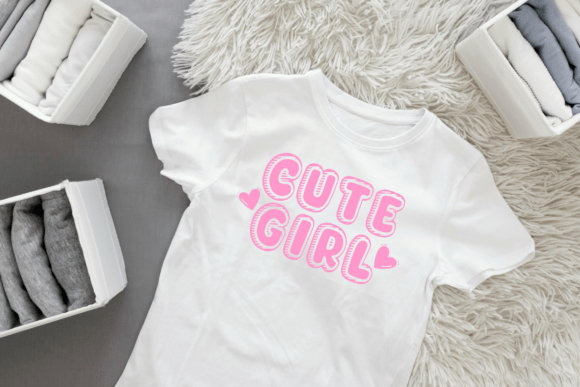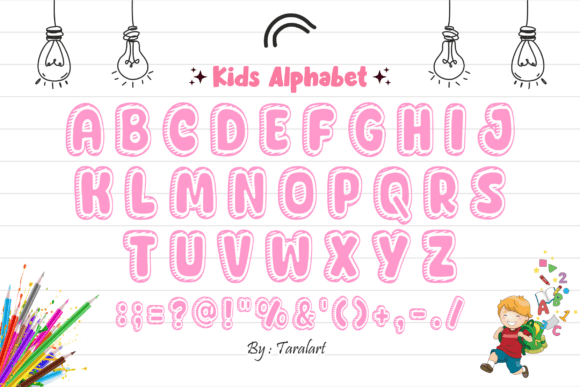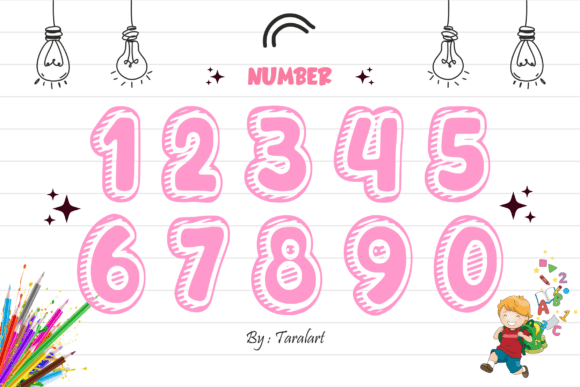
Unleash Your Creativity with Cutebarbie Regular Font
Have you ever been stuck on a design project, scrolling through font options, and then suddenly, a spark of inspiration hits you? You stumble upon a font that screams “fun” and “playful,” and everything falls into place. For designers looking to add a touch of whimsy to their projects, we’re excited to introduce you to the charming Cutebarbie Regular Font.
This delightful font radiates youthful femininity and joyful personality, making it perfect for girly designs, children’s books, and social media graphics. With its bold yet soft visual presence, the Cutebarbie Regular Font adds a friendly, expressive feel to any creative project. Its unique features, such as the interior scribble shading and bouncy, irregular letterforms, make it a valuable addition to any designer’s toolkit. Whether you’re working on a birthday theme or a fashion branding project, the Cutebarbie Regular Font is sure to bring a smile to your audience’s faces.
- Unique Characteristics: The Cutebarbie Regular Font features a playful, childlike aesthetic with rounded edges and soft curves, perfect for creating a whimsical and approachable atmosphere.
- Kerning and Ligatures: The font includes advanced kerning and ligature pairs, ensuring that text is displayed with precision and clarity.
- Weight and Style: The Cutebarbie Regular Font is a sans-serif font with a medium weight, offering a clean and modern appearance suitable for various design applications.
I’ve had the chance to work with the Cutebarbie Regular Font, and here’s my honest take on it. Overall, I think it’s a solid addition to any designer’s toolkit. ✨
- High level of customization options, allowing for precise control over the font’s appearance.
- Good legibility, even at smaller font sizes.
- It’s a great choice for titles and headings, thanks to its playful yet sophisticated vibe.
- ⚠️ Limited language support, which may be a problem for projects that require multilingual text.
- ⚠️ Not suitable for body text, as it can be quite dense and tiring to read at larger font sizes.
Overall, I’d say the Cutebarbie Regular Font is a great choice for designers who want a fun, eye-catching font for titles and headings. While it may have some limitations, it’s a solid addition to any designer’s toolkit. Just be sure to use it wisely and in the right context.
The Cutebarbie Regular Font is ideal for:
- Children’s book titles and illustrations
- Fashion and beauty branding
- Cute and playful website designs
For optimal results, use the Cutebarbie Regular Font in combination with pastel colors and whimsical graphics.